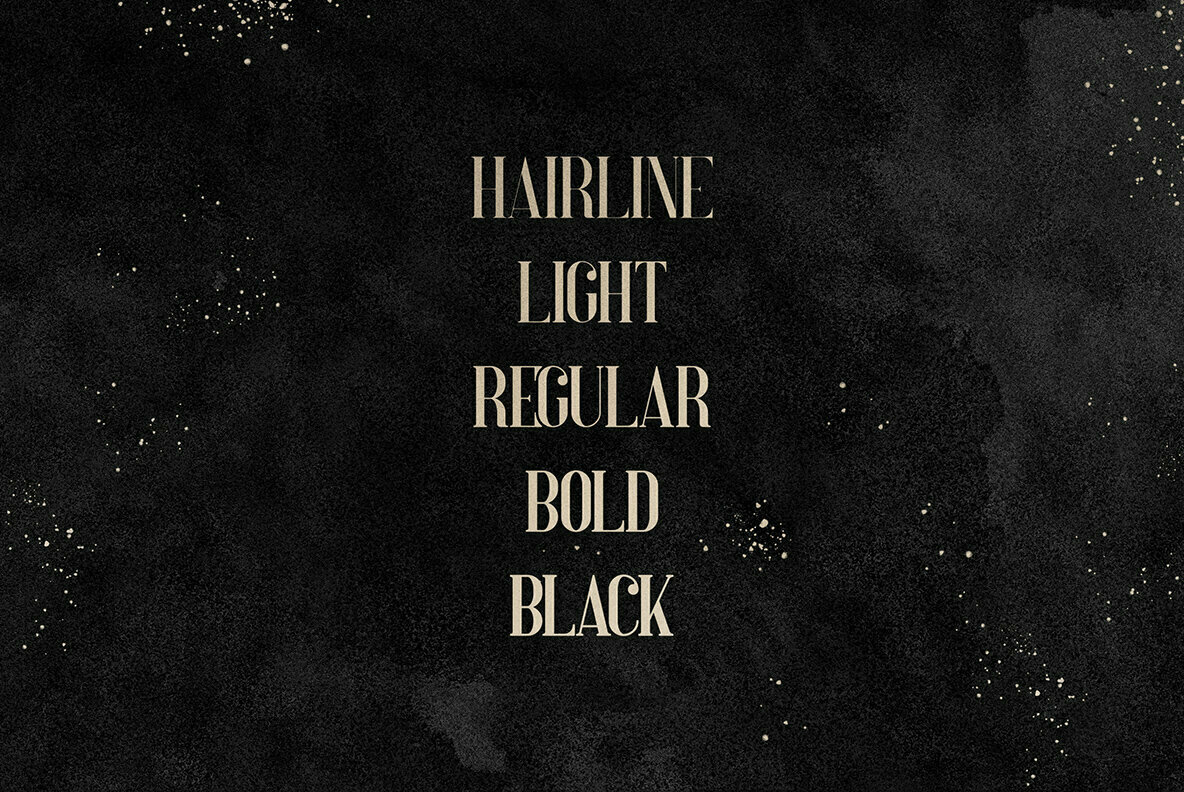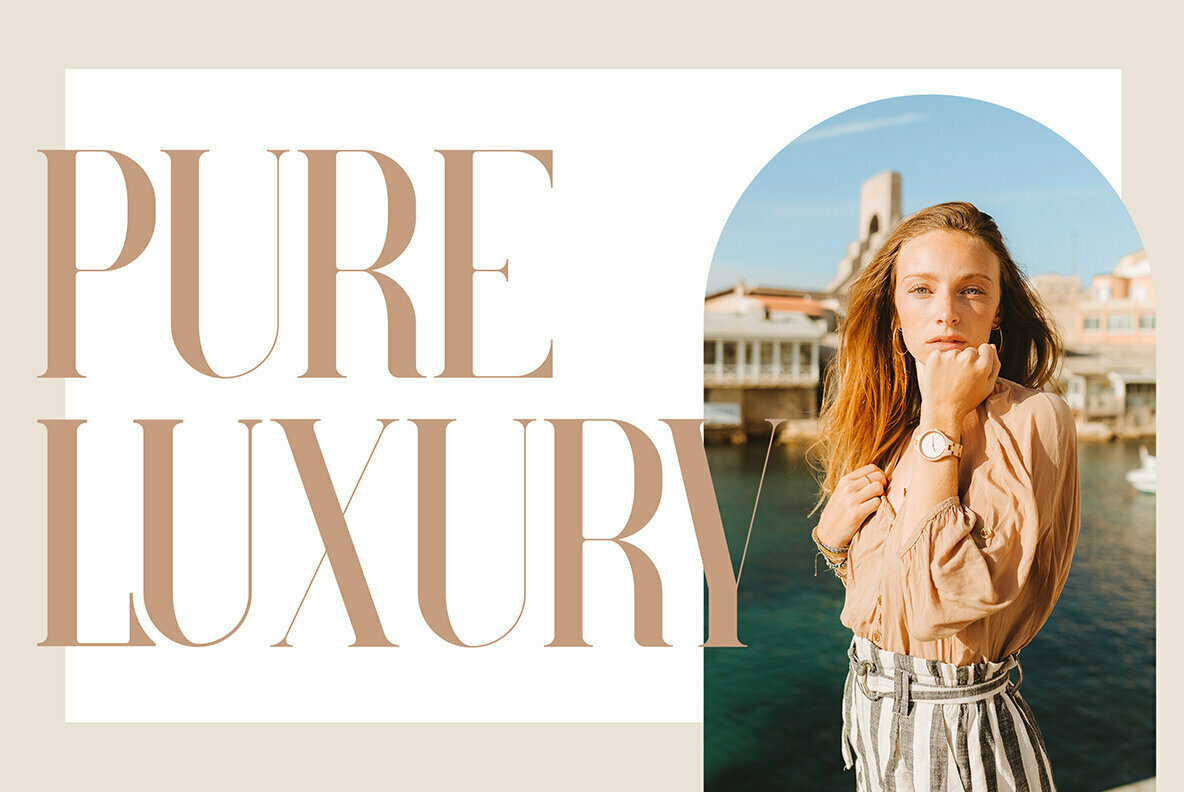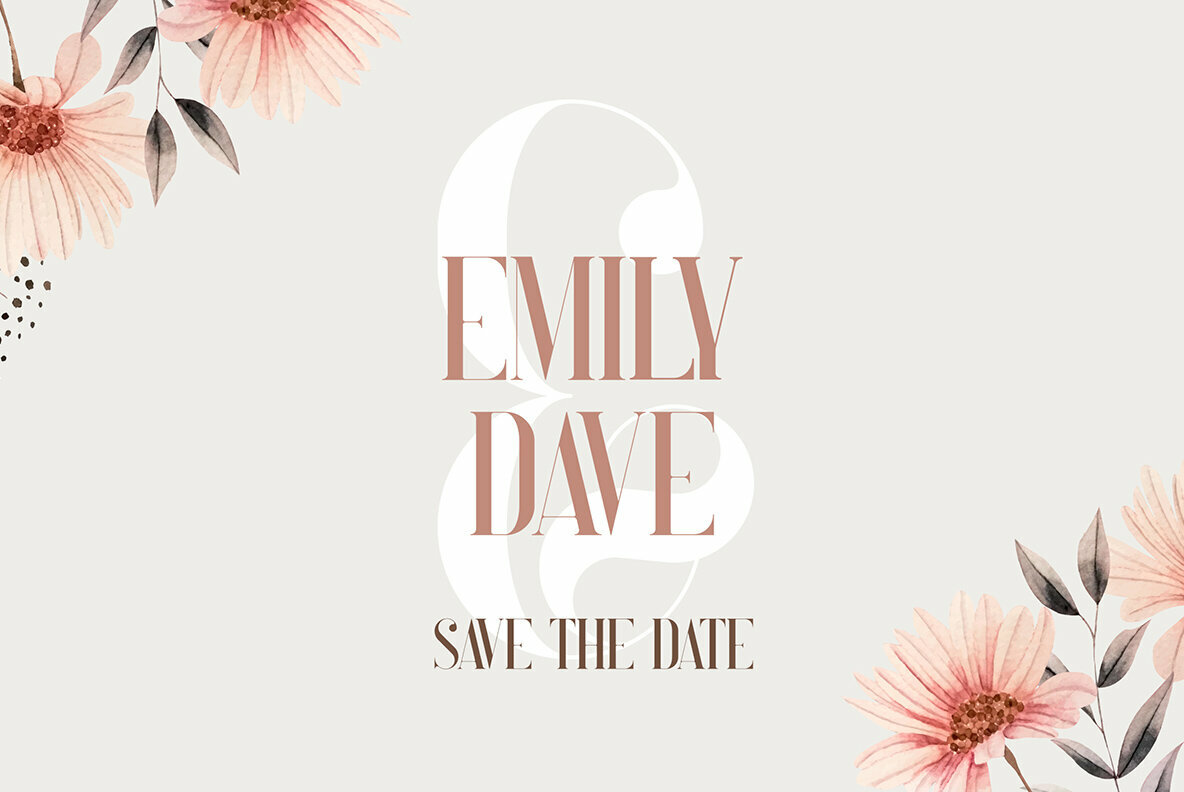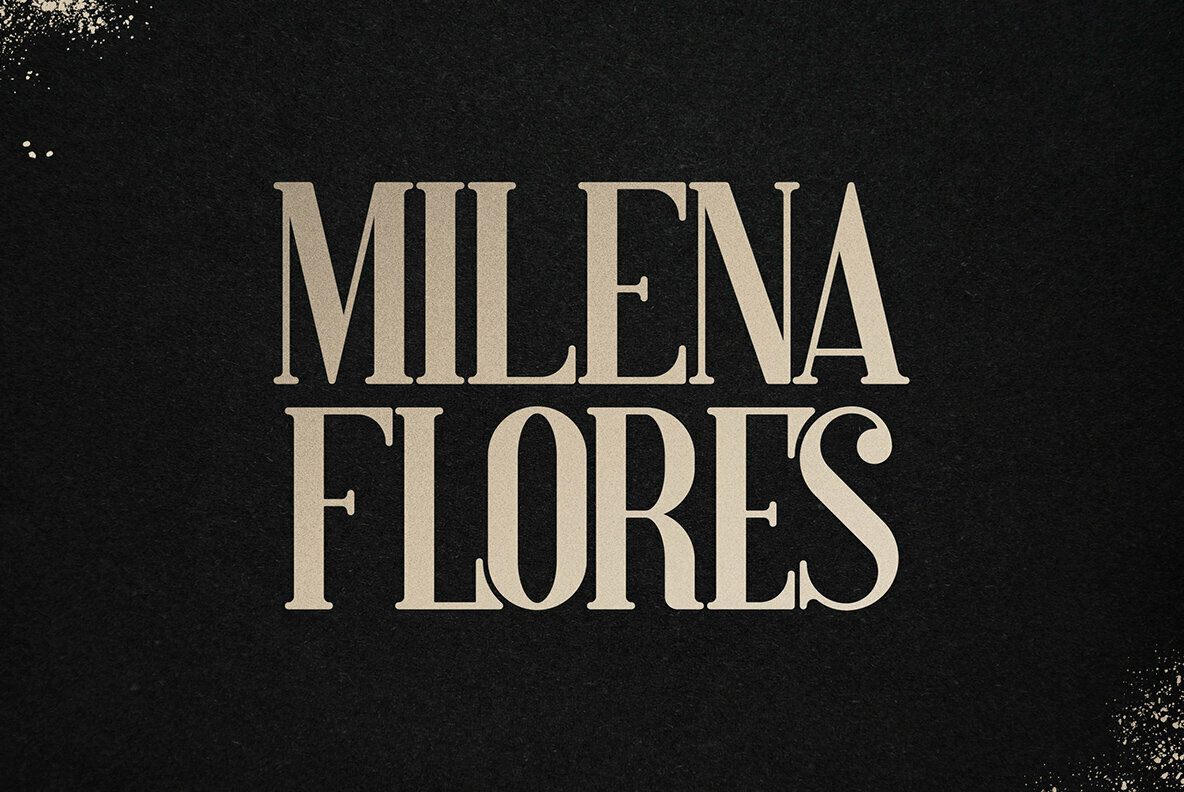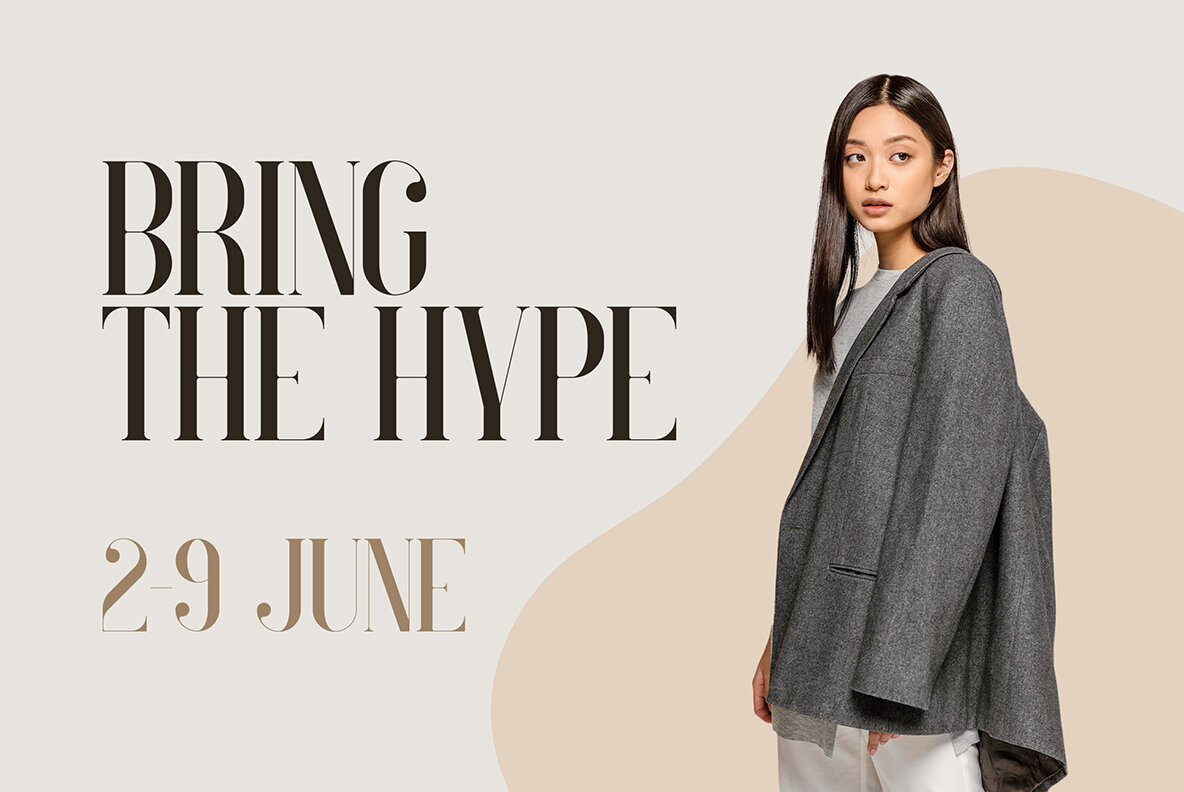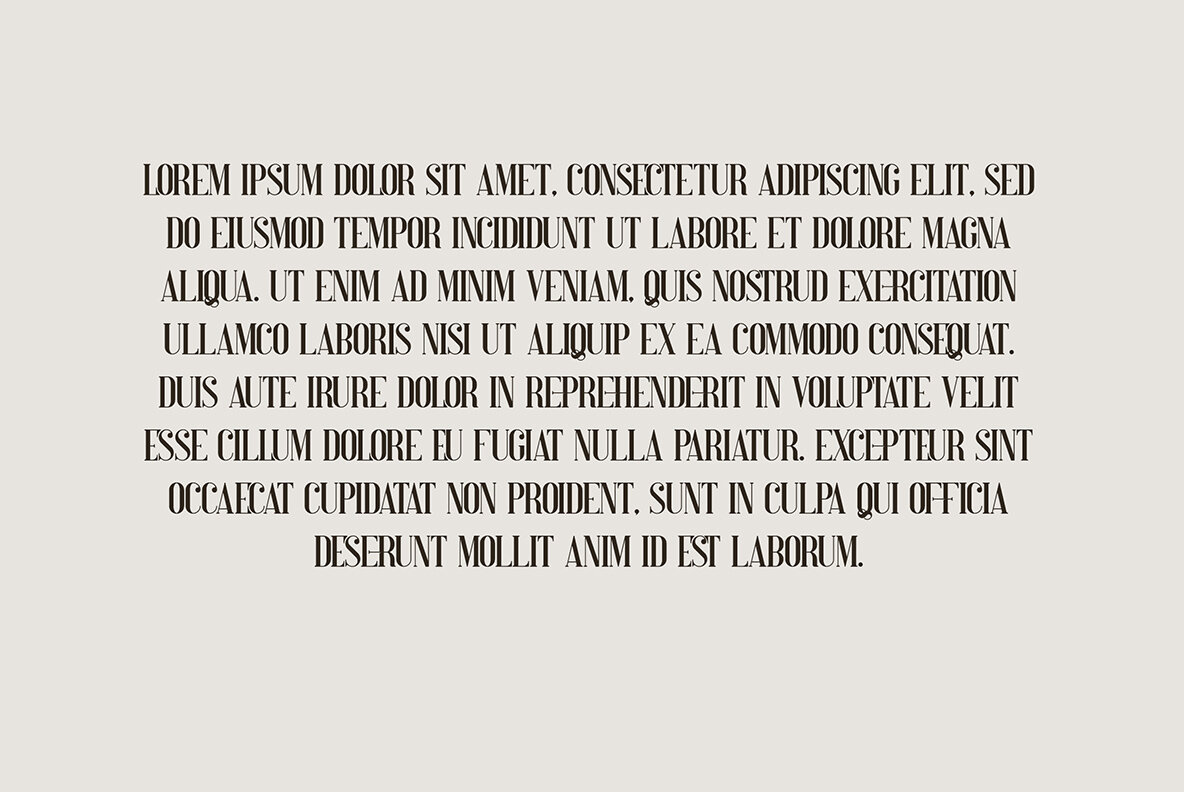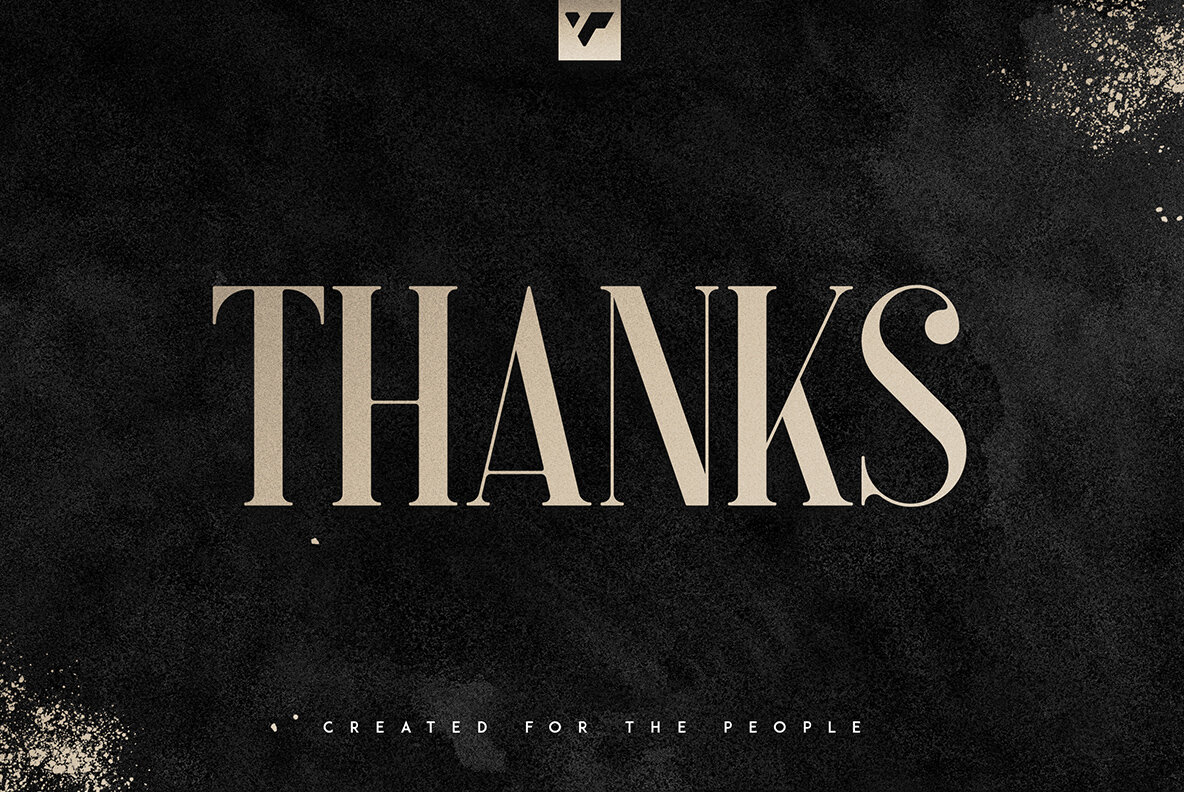
Perfectly Splendid Font
Perfectly Splendid offers a sophisticated touch, ideal for infusing magic into any design endeavor. With a collection of five distinct weights, this serif typeface adapts effortlessly to both large and small formats, making it an excellent choice for diverse projects. Perfectly Splendid supports both basic and advanced Latin character sets, offering versatility for various language needs. Designed to enchant, this typeface is the perfect stylish addition to your typography toolkit.Perfectly Splendid: A Versatile Serif Typeface